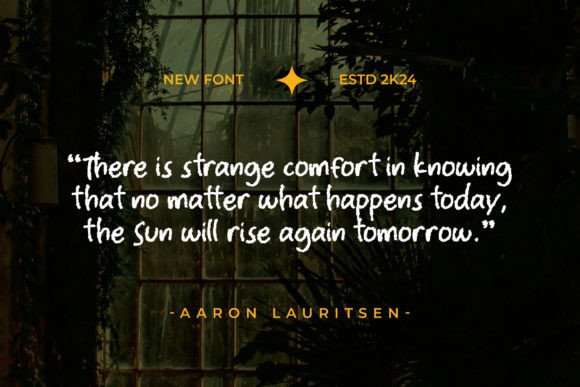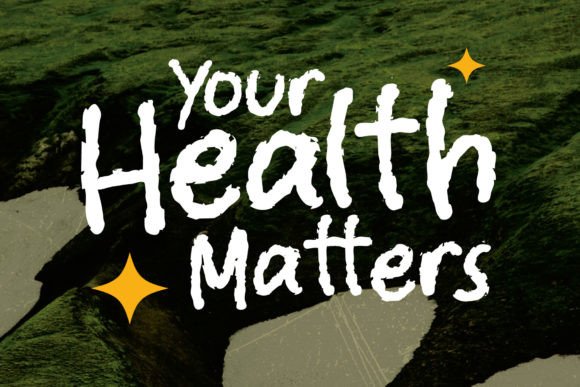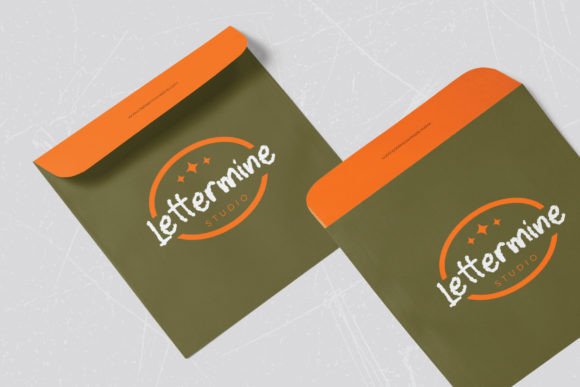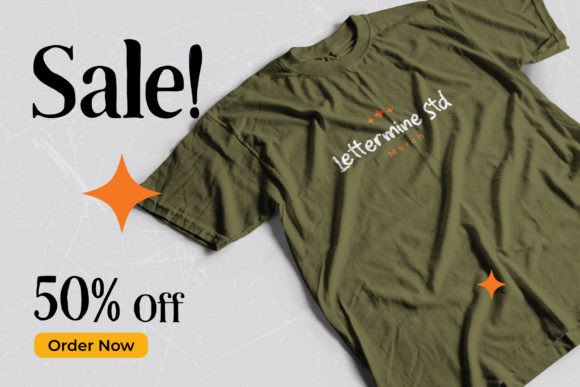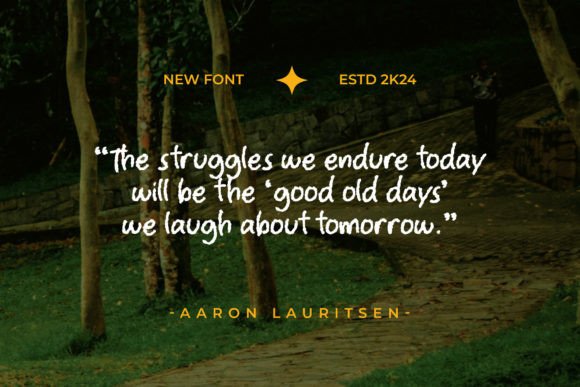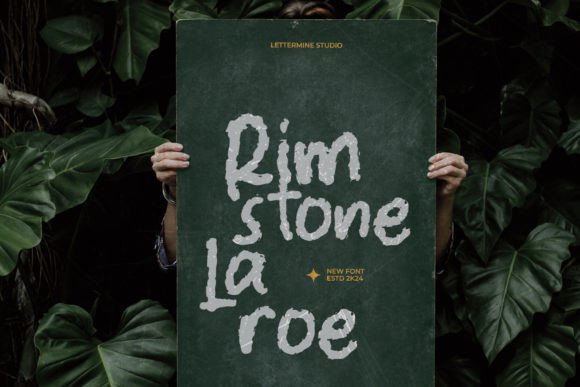
Introduction to Rimstone Laroe Font
As a designer, you’ve likely found yourself stuck in a creative rut, yearning for a font that can bring your vision to life. Maybe you’re working on a project that requires a personal touch, or perhaps you’re searching for the perfect design element to elevate your brand. Whatever your goal, the Rimstone Laroe Font is here to inspire you. With its unique, organic style, this handwritten font is a valuable addition to any design arsenal.
When you need a high-quality font that can add a human touch to your creative project, the Rimstone Laroe Font is an excellent choice. Its free download feature makes it easily accessible, and the transparent background allows for seamless integration into your design. Whether you’re a seasoned designer or just starting out, this font is a must-have resource for any creative endeavor.
- Unique and elegant design with a transparent background, ideal for adding a touch of sophistication to any project.
- Perfect for use in creative projects, such as graphic design, digital art, and print materials, due to its high-quality design and transparent background.
Honest Review: Rimstone Laroe Font
I recently had the opportunity to try out the Rimstone Laroe Font for a creative project and I’m excited to share my thoughts. This free download has quickly become one of my go-to design resources.
- High-quality design: The Rimstone Laroe Font features crisp, clear lines and a beautiful aesthetic that’s perfect for a variety of creative projects.
- Transparent background: The font’s transparent background makes it easy to place over any image or background, giving me endless possibilities for design.
- Wide range of applications: The Rimstone Laroe Font can be used for anything from titles and headings to body text and quotes.
Overall, I’m really impressed with the Rimstone Laroe Font. It’s a high-quality design resource that’s perfect for any creative project. While it may have some limitations, the benefits far outweigh the drawbacks. I highly recommend giving it a try!
Common Use Cases for Rimstone Laroe Font
The Rimstone Laroe Font is perfect for creative projects such as wedding invitations, business cards, and social media graphics. Its elegant design and high-quality design make it a great choice for any project where you want to add a touch of sophistication.